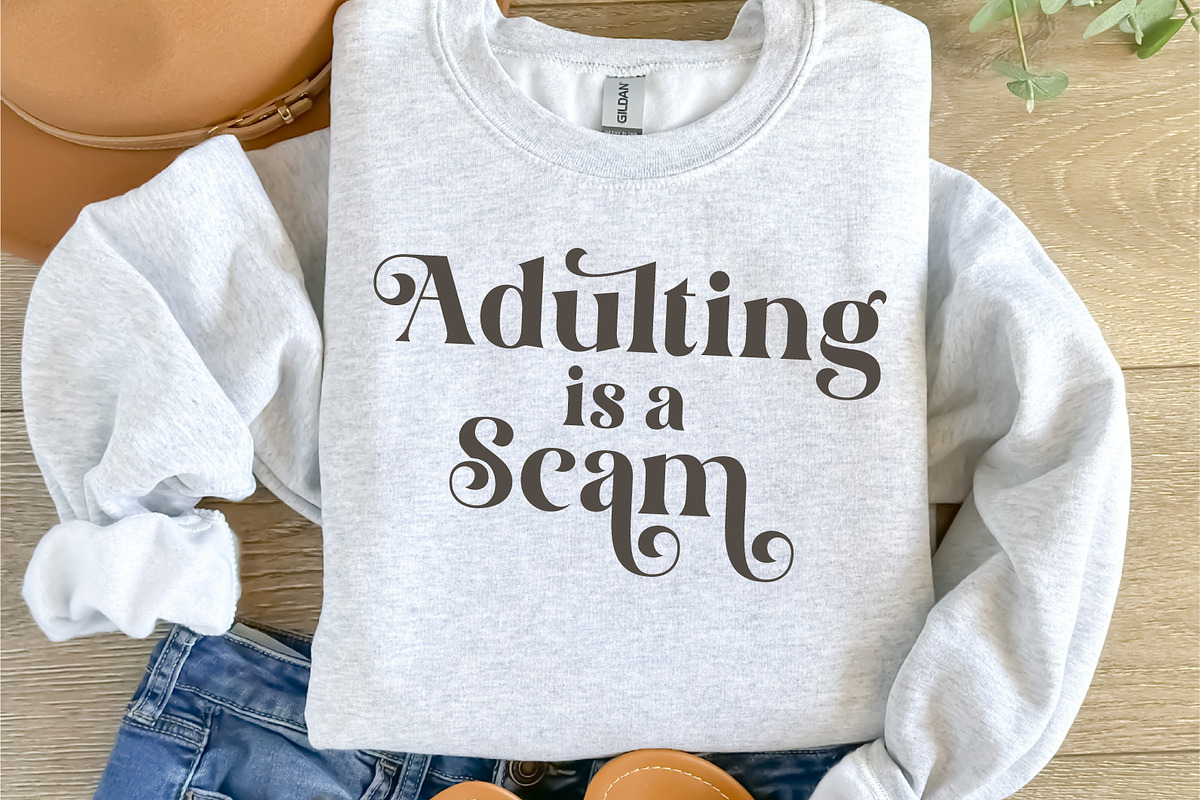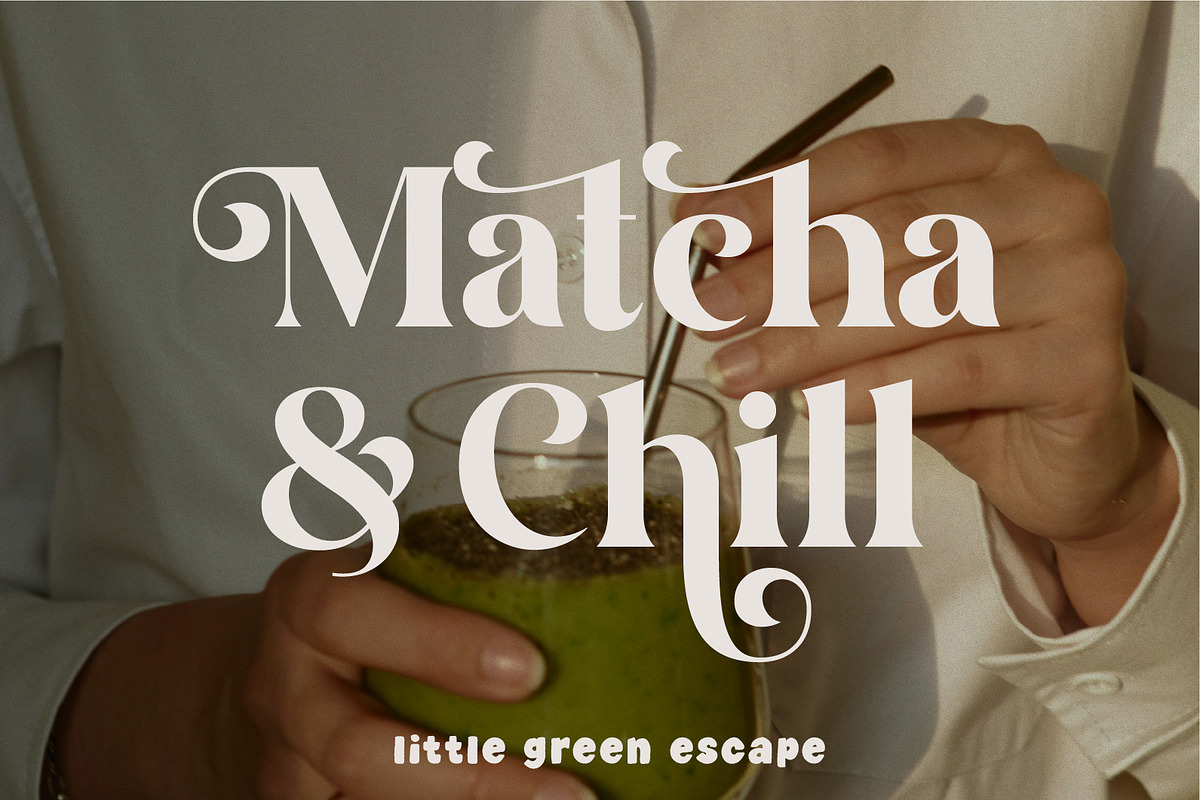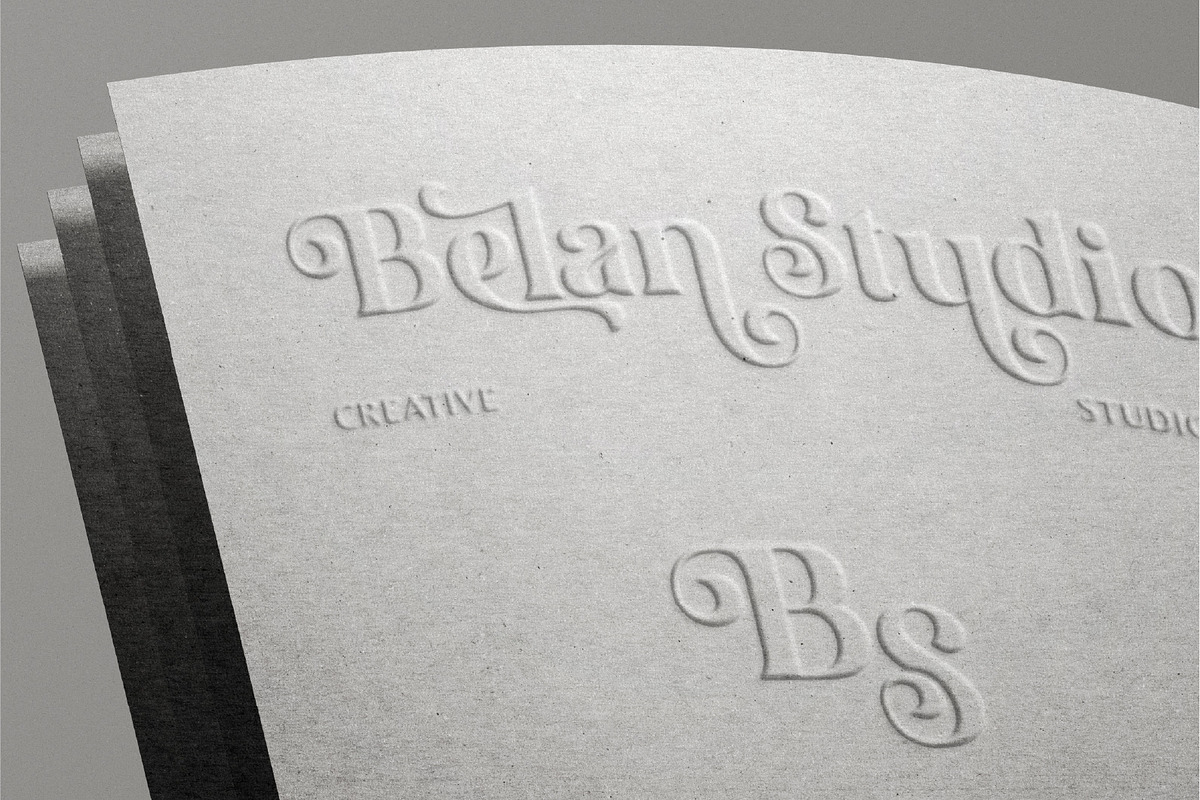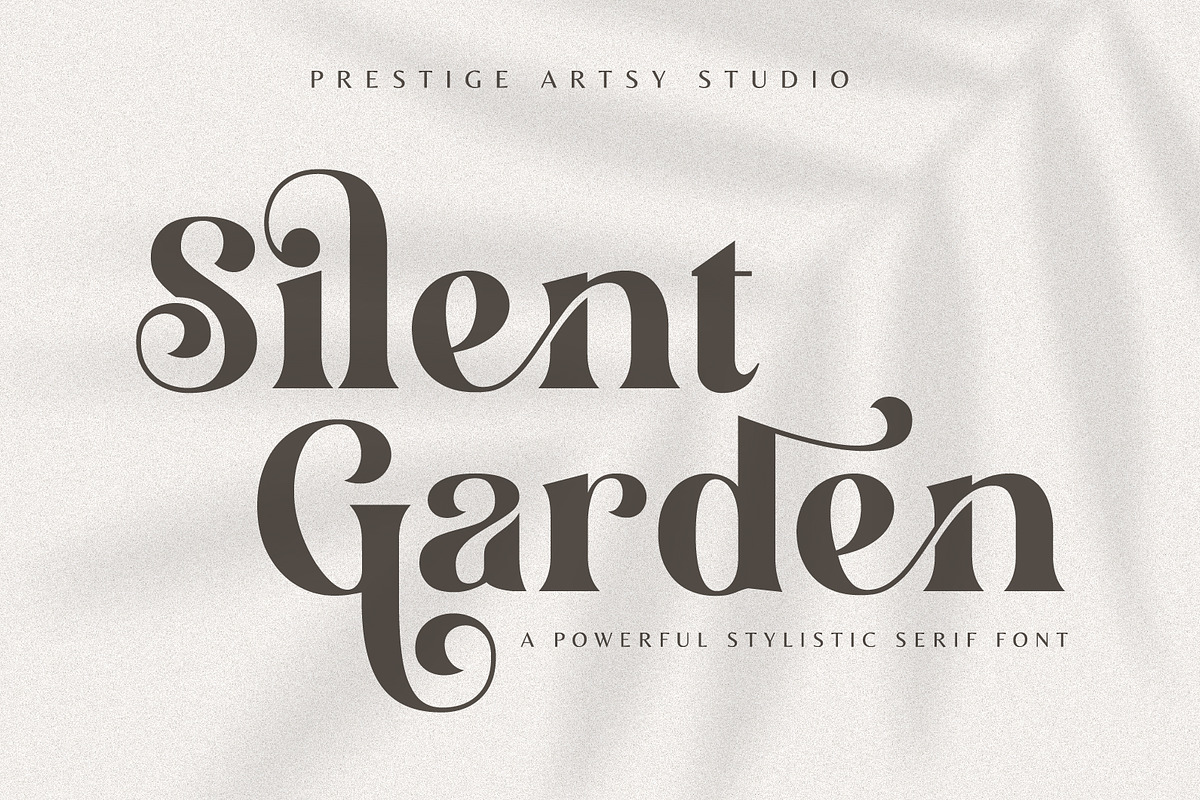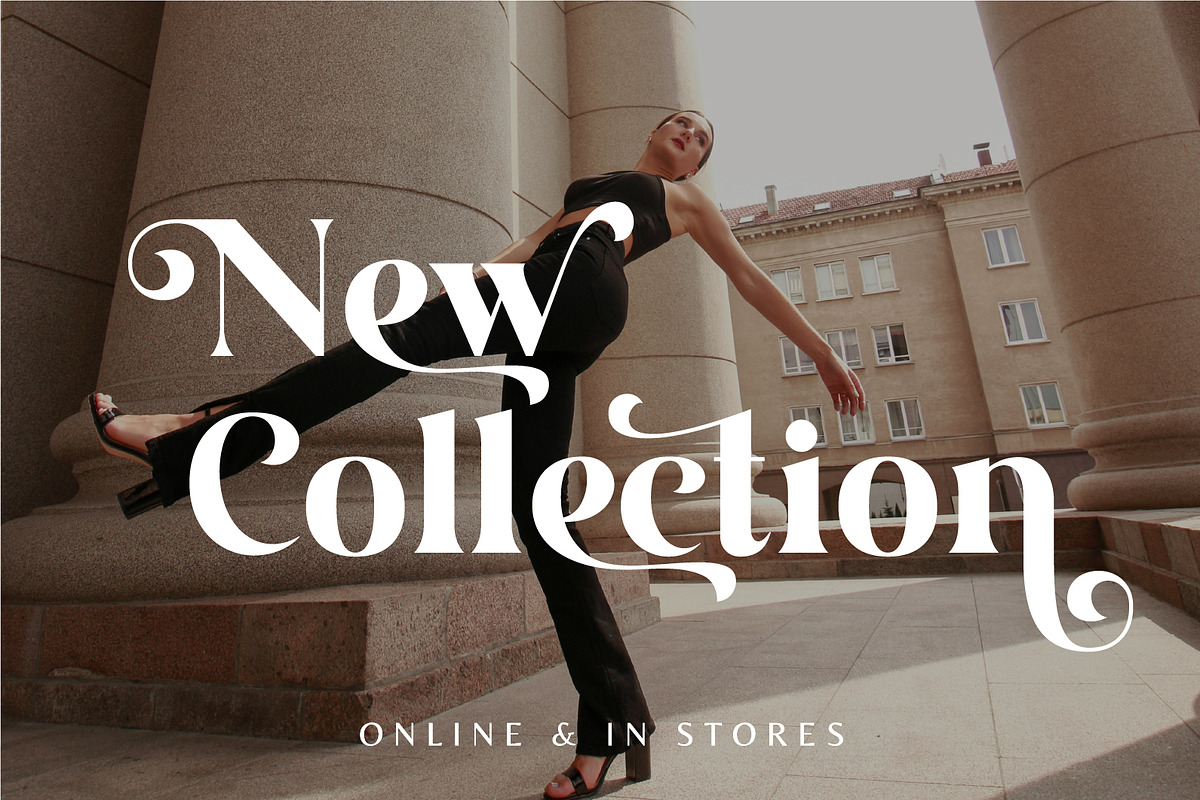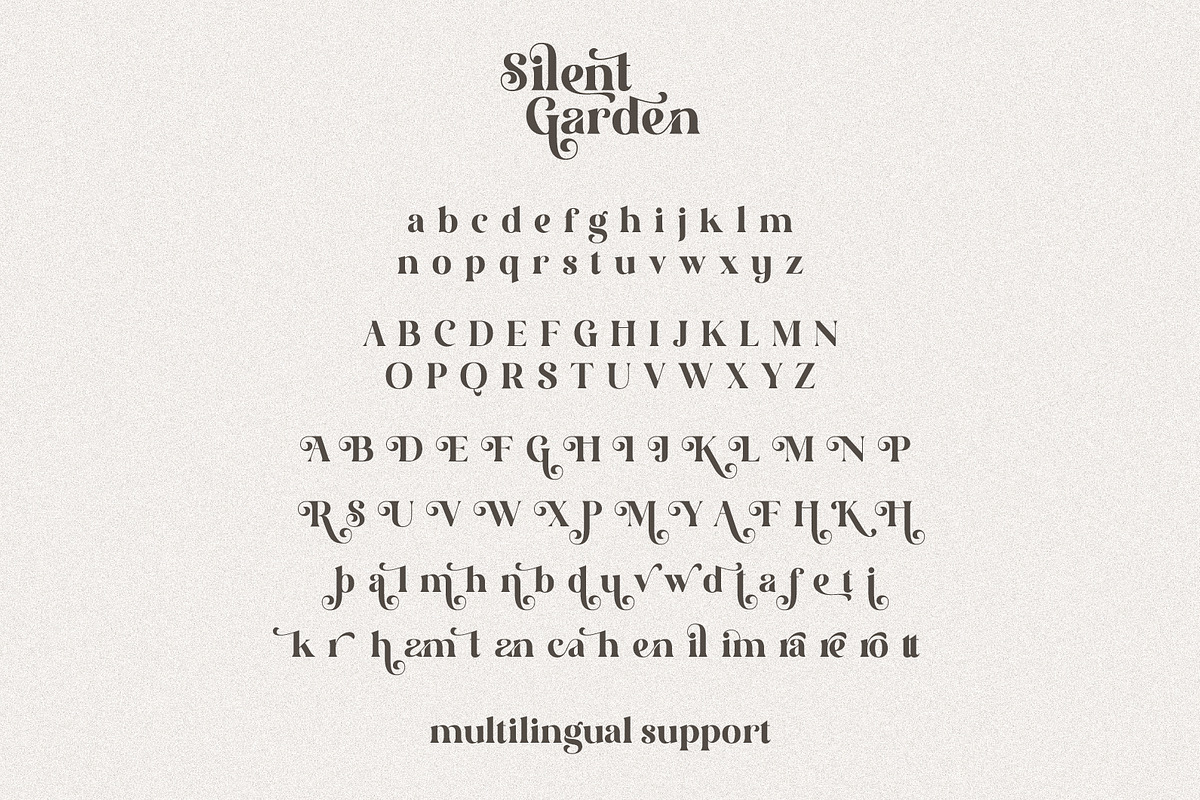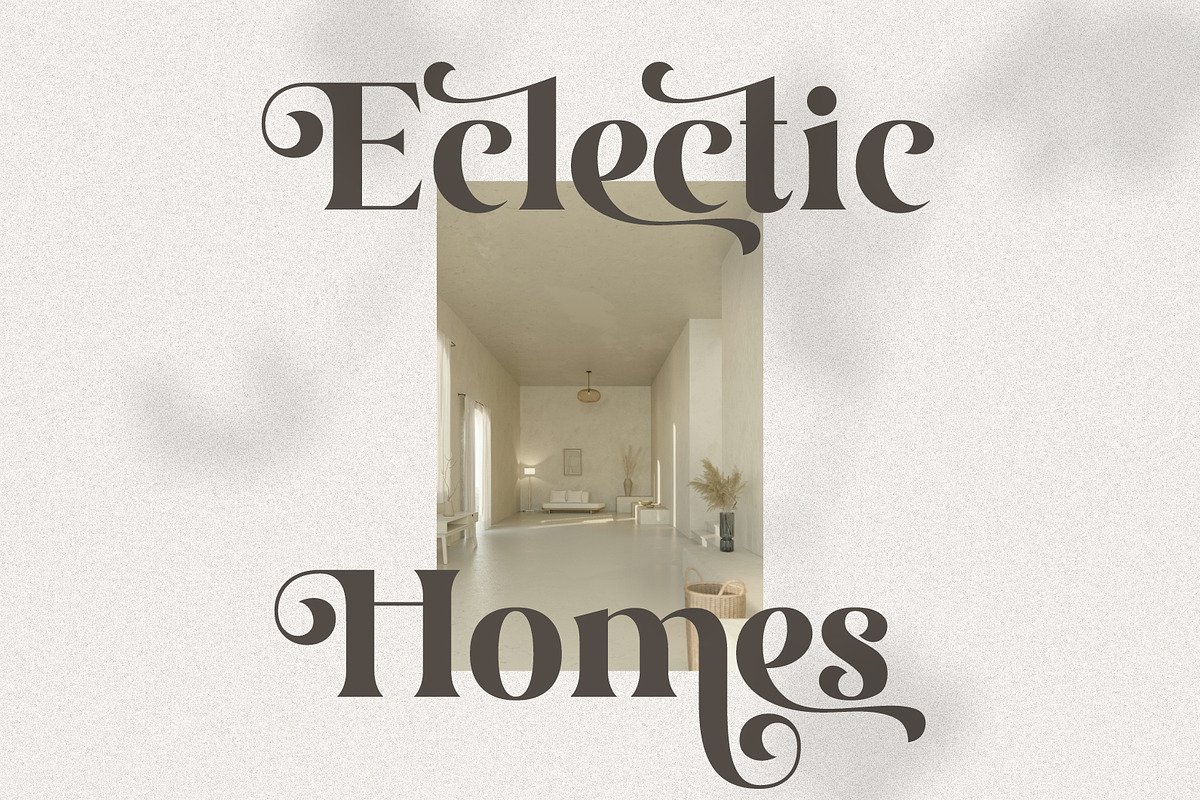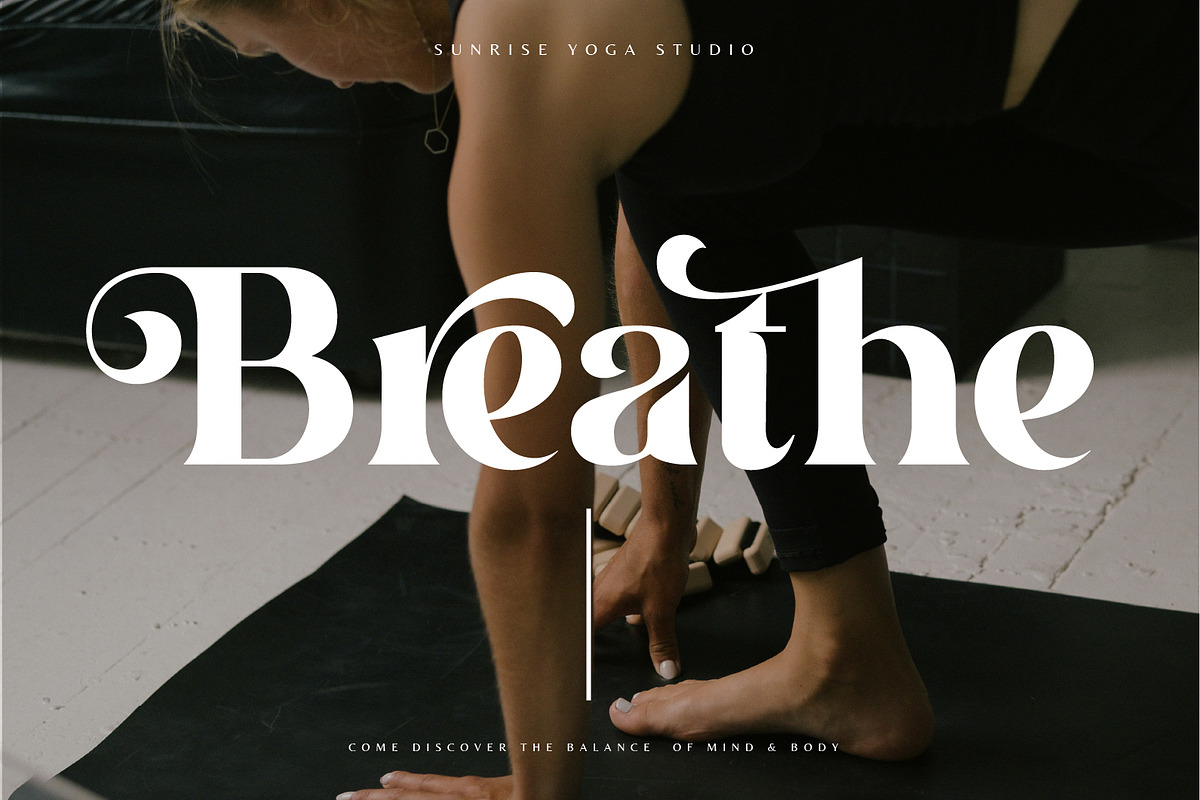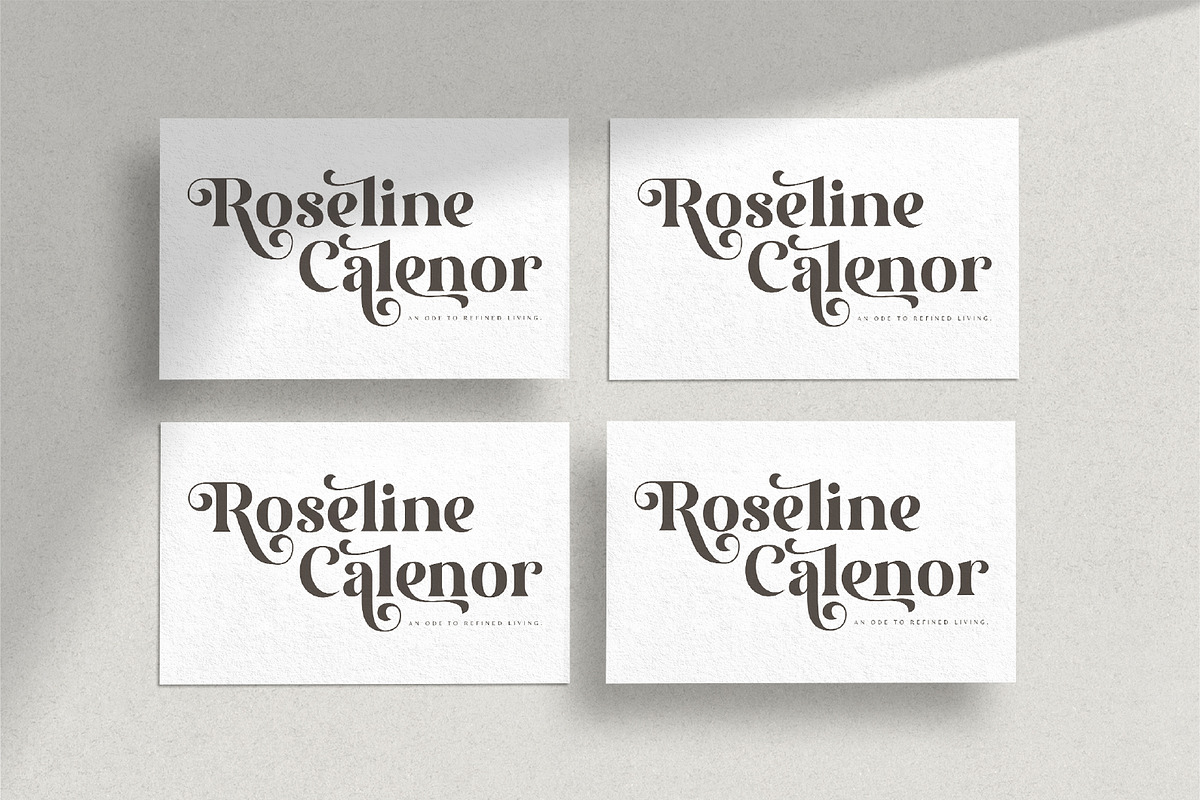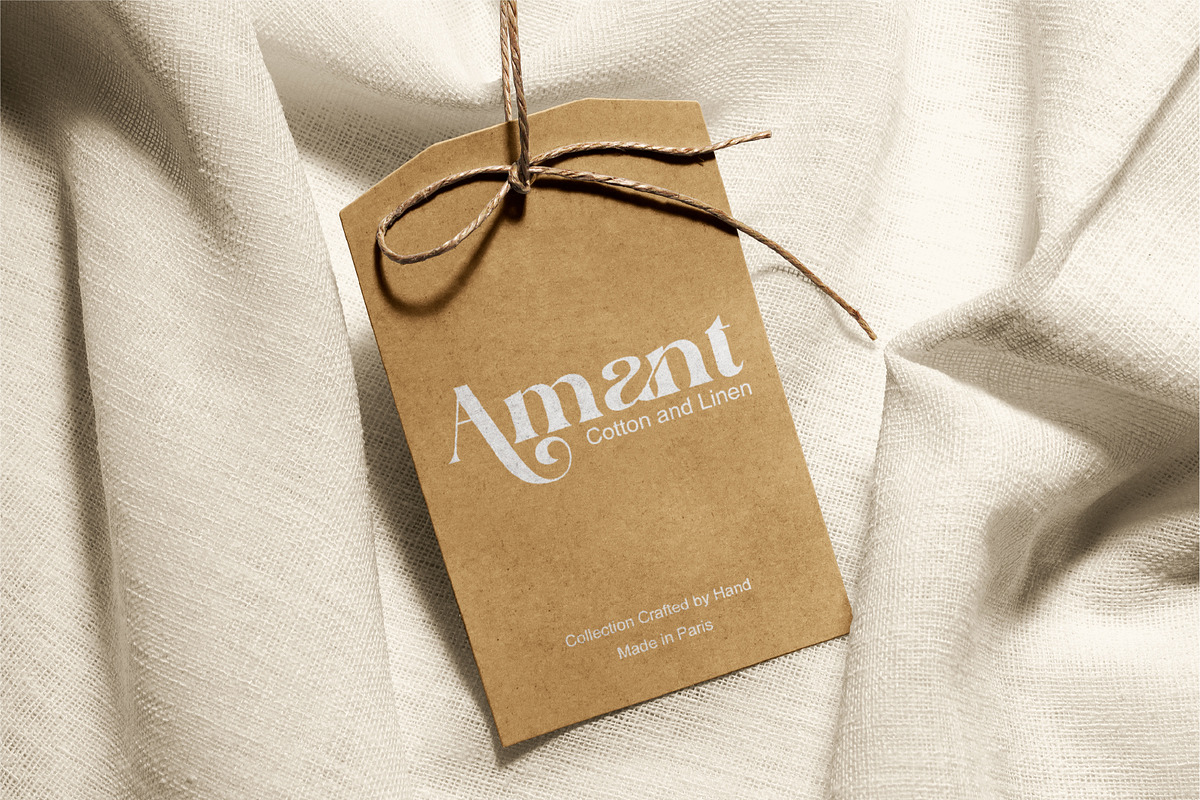
Silent Garden
🌿 Silent Garden — A Powerful Bold Serif Font
Silent Garden is a confident, sculpted serif designed for designers who value restraint, structure, and quiet authority ✨
Its bold yet composed letterforms feature expressive alternates that add personality without excess, giving your work a refined, established, and timeless feel. This is not a trend font — it’s a serif built to last.
🌍 Multilingual Support Silent Garden includes extensive Latin-based multilingual support, covering: • Basic Latin • Western European • Central European • South Eastern European • South American • Oceanian Ideal for international branding and global design projects.
🎨 Expressive Alternates (PUA Encoded) Silent Garden includes carefully designed alternates, PUA encoded for easy copy-and-paste access. No advanced OpenType features needed — perfect for Canva, while remaining powerful in professional design software.